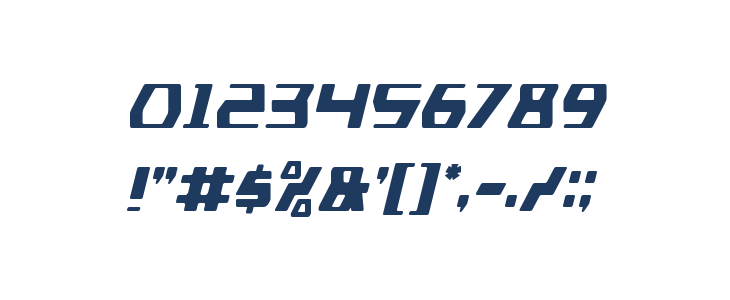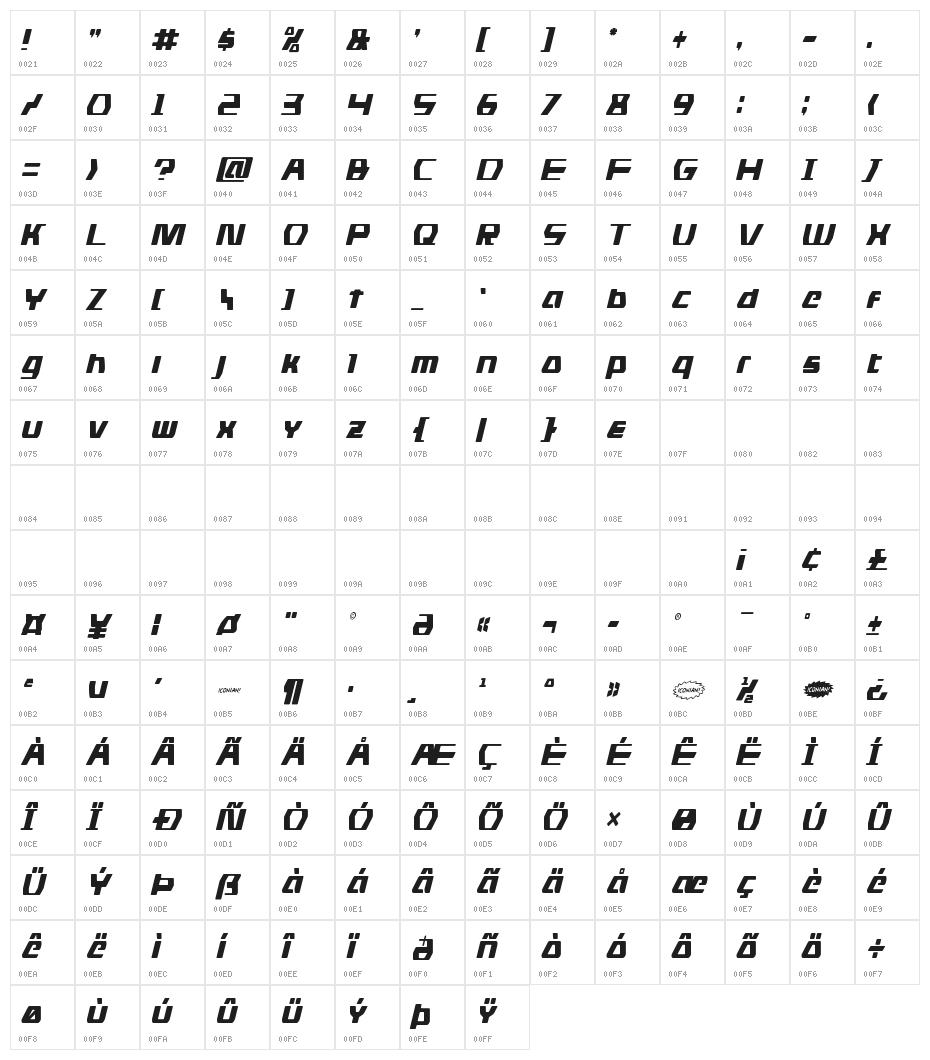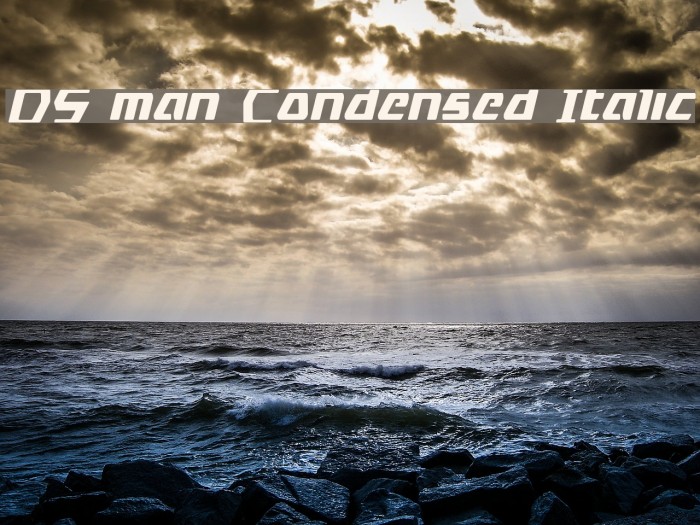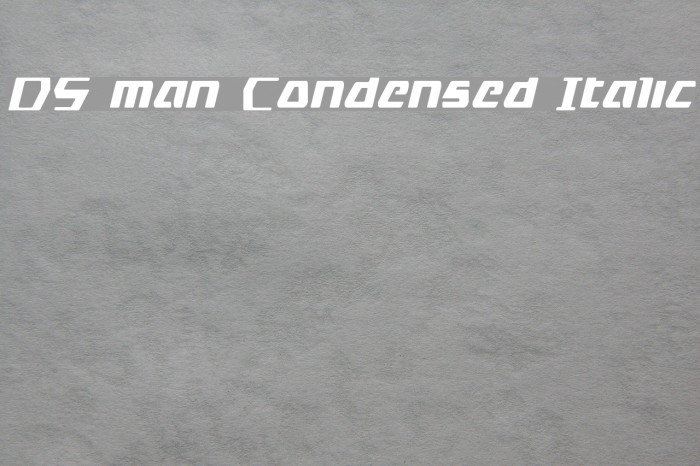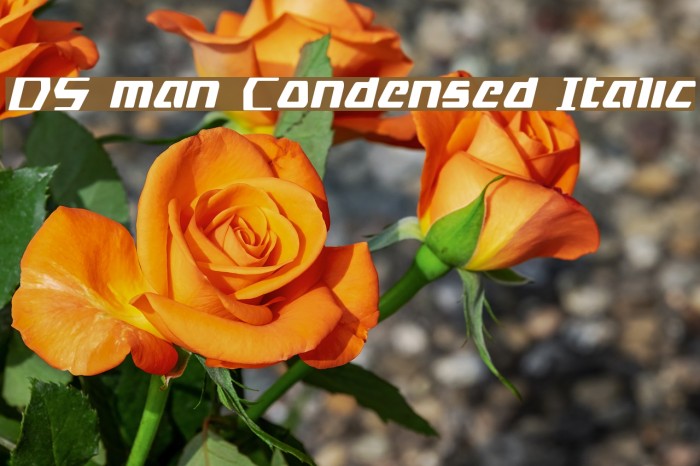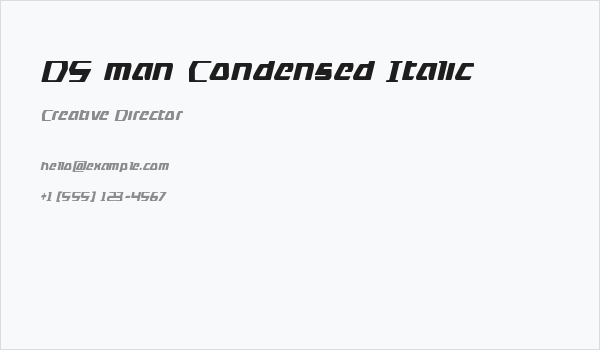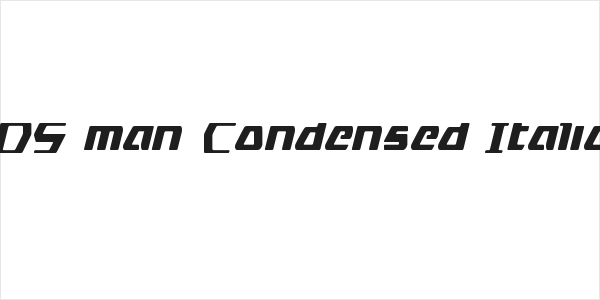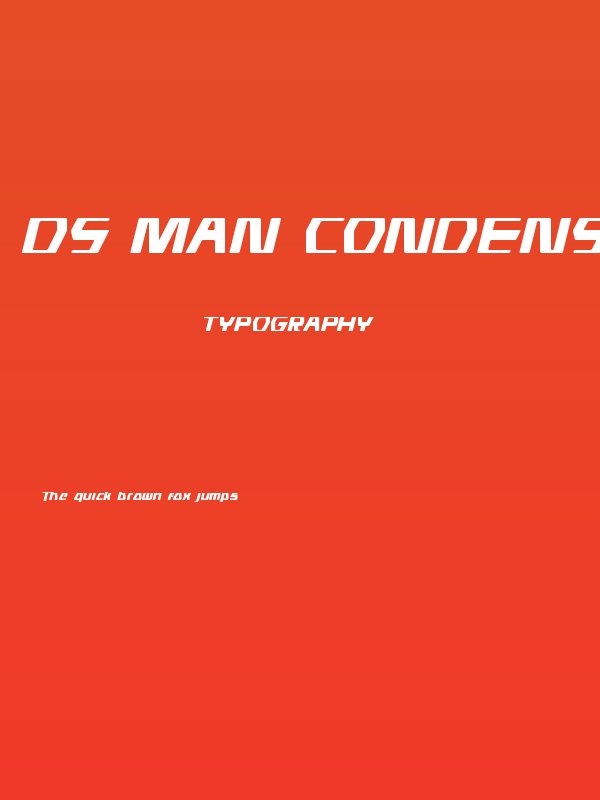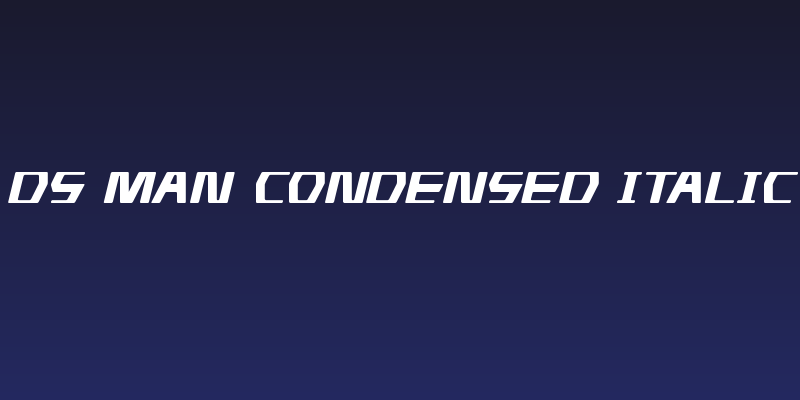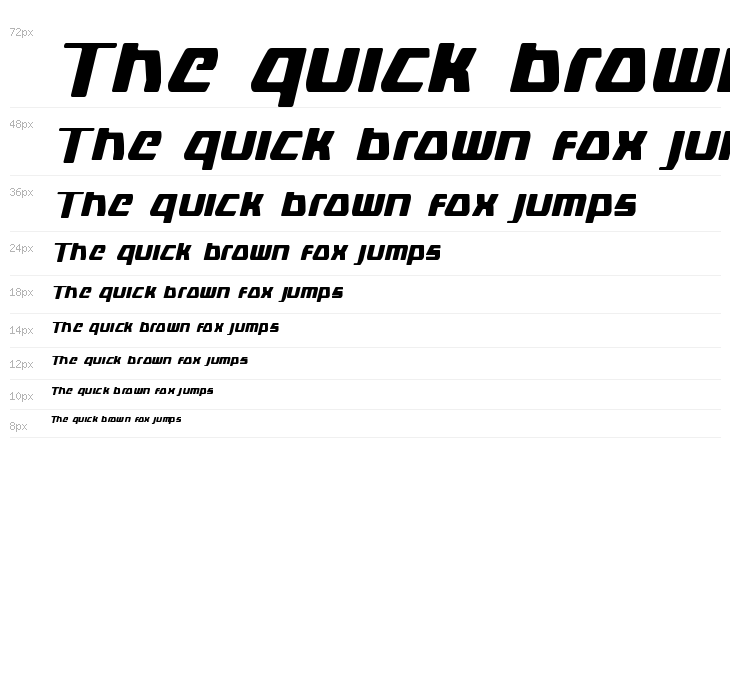
DS man Condensed Italic Font
DS man Condensed Italic Description
This font features a modern, dynamic style with a condensed and italicized form. The characters are bold and angular, giving a sense of movement and speed. The uppercase and lowercase letters maintain a consistent slant, enhancing the italic effect. The numbers and special characters follow the same design principles, ensuring uniformity across all glyphs. The overall appearance is sleek and futuristic, making it suitable for projects that require a contemporary and energetic look.